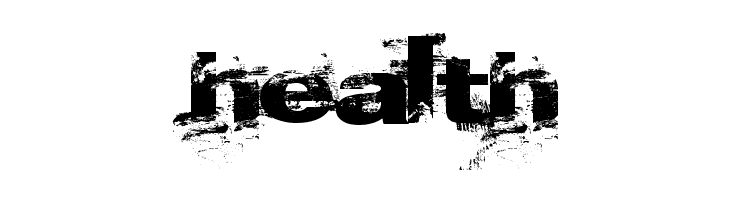
A bold, distressed font with a grunge, corroded texture.
A distressed, grungy font with bold, textured characters.
A bold, distressed font with a grunge texture and tight spacing.
A rugged, textured font with a hand-crafted, adventurous feel.
A distressed, grungy font with chaotic, textured characters.
A bold, distressed font with a grunge aesthetic and chaotic texture.